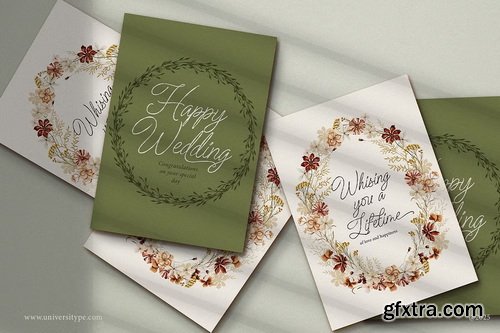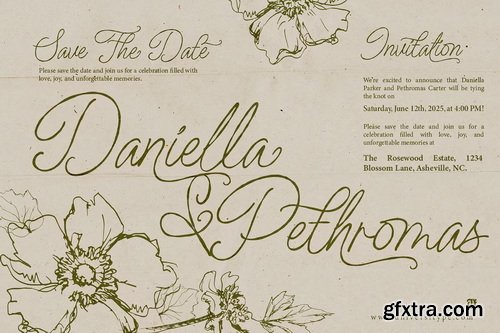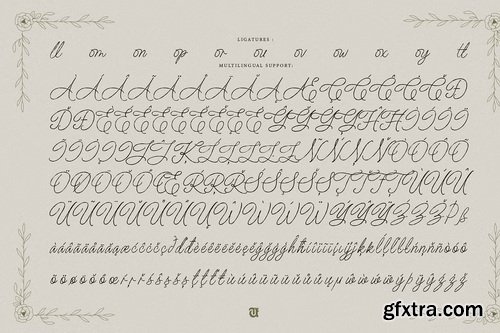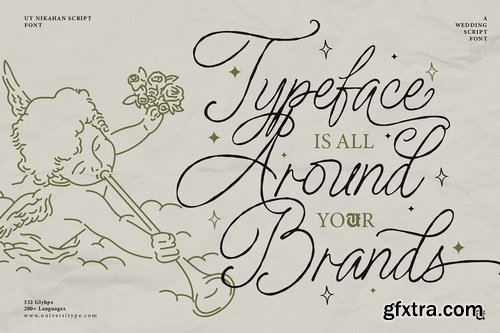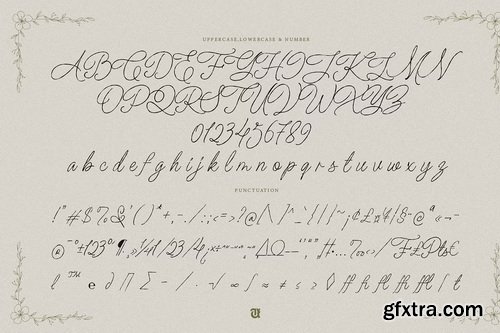
CreativeMarket - UT Nikahan Script - A Wedding Font
UT Nikahan Script, a beautiful wedding font with all the elegance of calligraphy. The flowing lines and fancy details make it perfect for creating romantic wedding invitations and stationery that will really wow your guests. Target Audience: This font is great for wedding planners, designers, and couples who want to add a bit of extra elegance and personal touch to their wedding stuff like invitations, save-the-dates, programs, and other wedding papers.